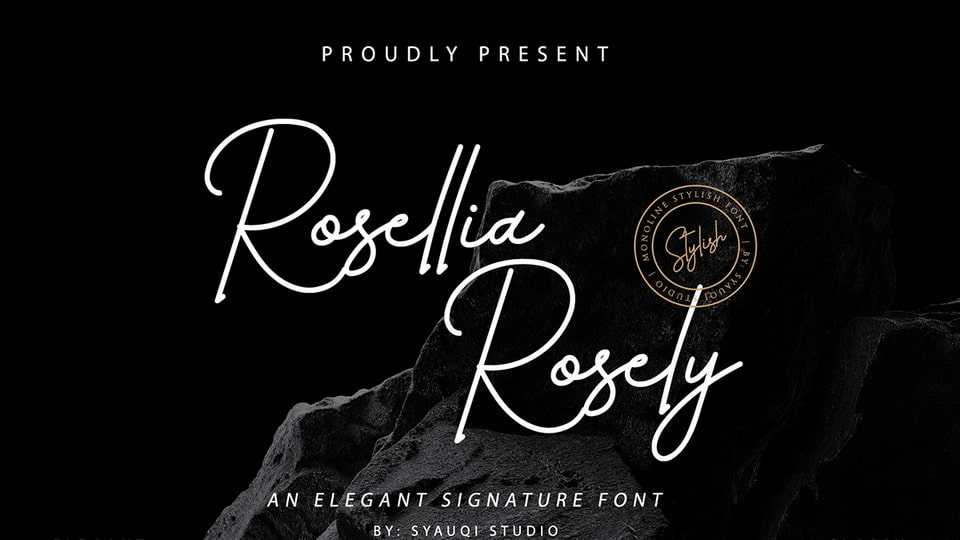
Download Rosellia Roselyfont, a meticulously crafted handwritten typeface designed for those who appreciate elegance and sophistication in their typography.
Designer: Syauqi Studio